The best fonts for art are the ones that blend right into the artwork, becoming part of the story you're telling. They do more than just spell out words; they whisper a mood and hint at a deeper meaning.
Artists get this. They'll use an elegant serif like Playfair Display to evoke a classic, timeless feel, or a clean, no-fuss sans-serif like Montserrat for something sharp and modern. Some are now even using an AI font generator to create completely custom typefaces that perfectly match their vision. The secret is to stop seeing typography as just text and start treating it like another colour on your palette.
Seeing Fonts as a Core Artistic Tool
It's time for a mindset shift. A font isn't just the final sprinkle on top of a finished piece; it's a foundational part of your creative toolkit. It can set the tone in a split second, suggest a historical era, or pack an emotional punch before anyone even reads the words. Nailing this concept is the first real step to making your text a living, breathing part of your art.
Think about the tension and harmony you can create just by pairing different font styles. An artist might contrast a formal, old-style serif with a stark, minimalist sans-serif. This isn't just about looking cool—it’s a strategic move. It guides the viewer's eye, creates a visual hierarchy, and tells them where to look first.
Building Visual Harmony
Forget generic design rules for a moment and focus on the 'why' behind your font choices. In so many iconic art pieces, the typography is the unsung hero. Picture a vintage-inspired concert poster where a big, bold retro font is doing all the heavy lifting, or a slick digital piece where a futuristic typeface sells the entire sci-fi vibe. These work because the font choice was deliberate and baked into the concept from the start.
To get there, keep two things in mind:
- Hierarchy: Play with font size, weight, and style to tell a story. A powerful headline font needs to grab you by the collar, while the body text can hang back and provide the quieter details.
- Spacing: This is huge. Pay attention to the spacing between letters (kerning) and between lines of text (leading). Getting the spacing right makes your text readable and gives it room to breathe, making the whole design feel intentional and polished.
The Growing Demand for Custom Typography
This obsession with unique, meaningful typography isn't just an artistic whim; it's a booming market trend. Just look at the UK's custom printing scene, which is all about distinctive fonts on everything from art prints to t-shirts. That market is set to explode, with a projected compound annual growth rate of 11.5% from 2025 to 2030. This shows a massive public appetite for personalised art where the typography is just as important as the image.
Typography is the art of arranging letters and text in a way that makes the copy legible, clear, and visually appealing to the reader. It’s about ensuring the font choice supports the artwork’s message, rather than distracting from it.
Getting to Grips with Font Styles
Feeling a bit lost in a sea of serifs, scripts, and slab serifs? It's a common feeling, but don't get overwhelmed. The key is to think of font styles not as strict rules, but as different emotional toolkits. Each one brings its own unique flavour to your art.
A flowing, hand-drawn script, for example, can give a branding project an instant shot of authenticity and personal flair. On the other hand, a sharp, geometric sans-serif can give a digital illustration a clean, modern edge that feels precise and intentional. And for something truly unique, an AI font generator can help you create a style that exists nowhere else. The choice you make fundamentally shapes how people see your work.
Understanding Font Personalities
A great way to find your footing is to explore the different types of typefaces available. Every font family has a distinct personality. A classic serif might feel traditional and reliable, while an expressive display font can be quirky, loud, and full of energy. Getting a feel for these personalities is far more useful than just memorising textbook definitions.
The image below gives you a quick visual overview of the major font categories, which should help you see their unique characteristics at a glance.
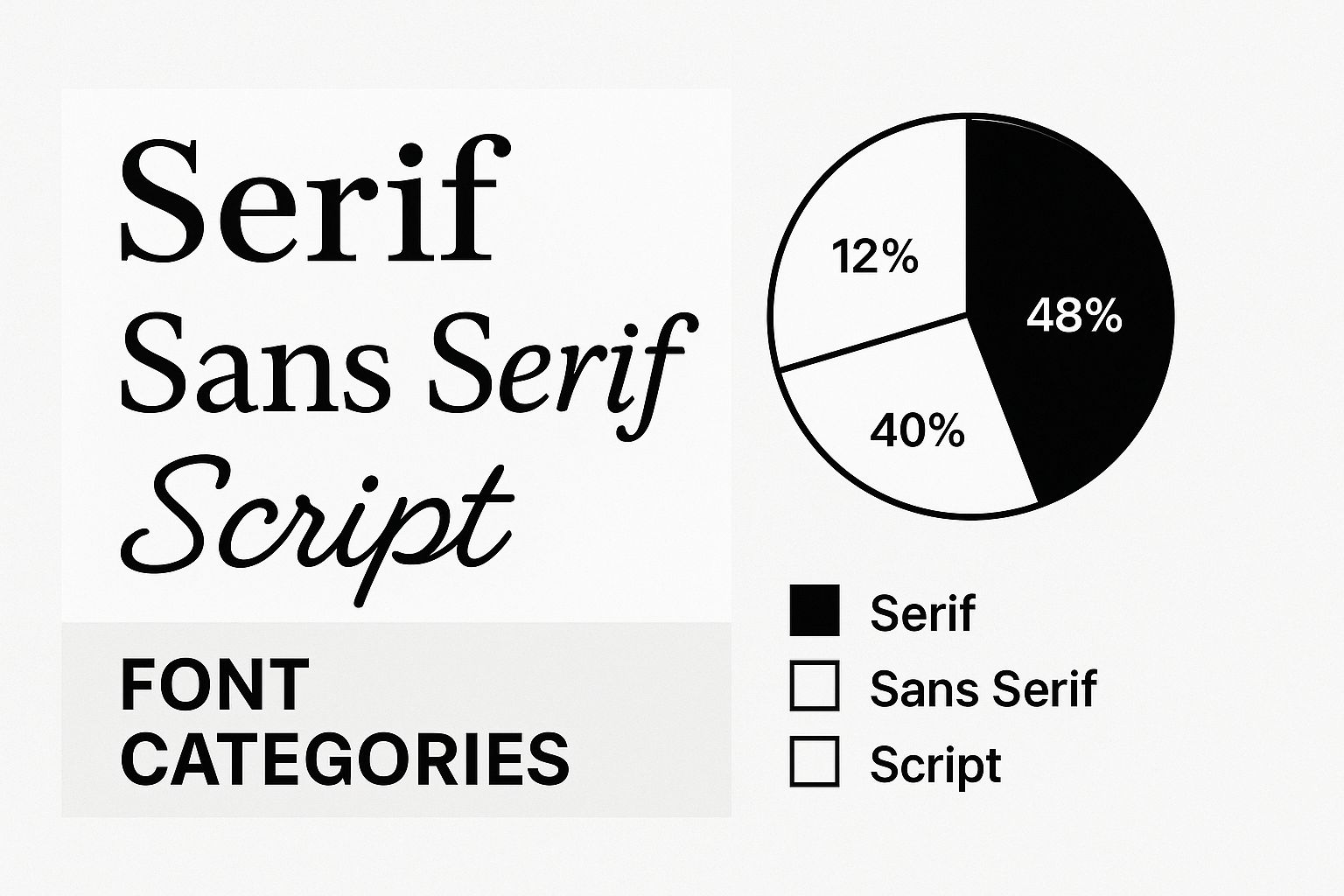
This visual breakdown really highlights how each font's structure—from the little "feet" on serifs to the flow of its curves—builds its overall mood.
Looking at current UK design trends, there's a fascinating blend of old and new happening right now. We're seeing a real resurgence of traditional fonts, but they're being twisted and remixed with digital innovation. It's a mix of heritage and modern design thinking. British designers are revisiting classic motifs and retro typography, but using today's tools, like an AI font generator, to create art that feels both nostalgic and totally fresh.